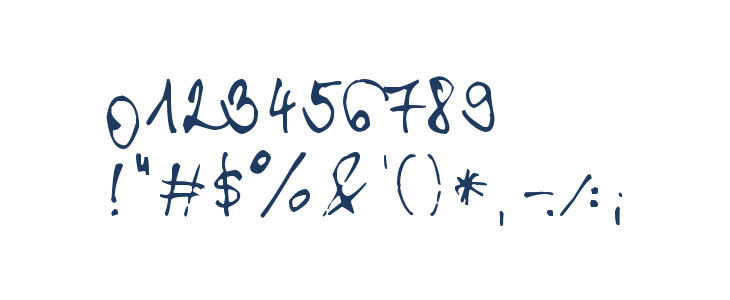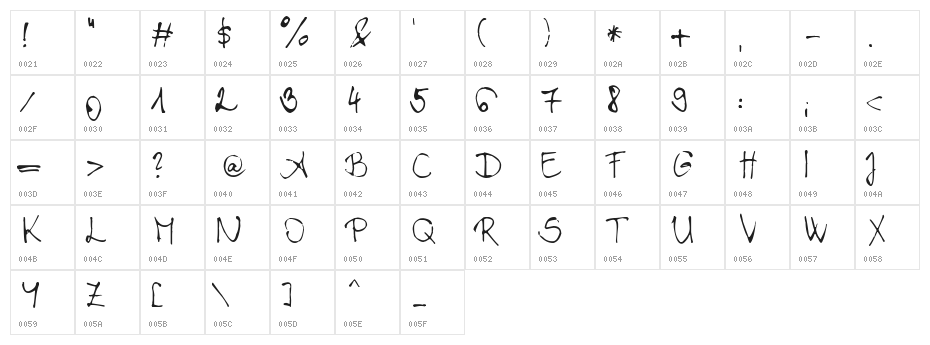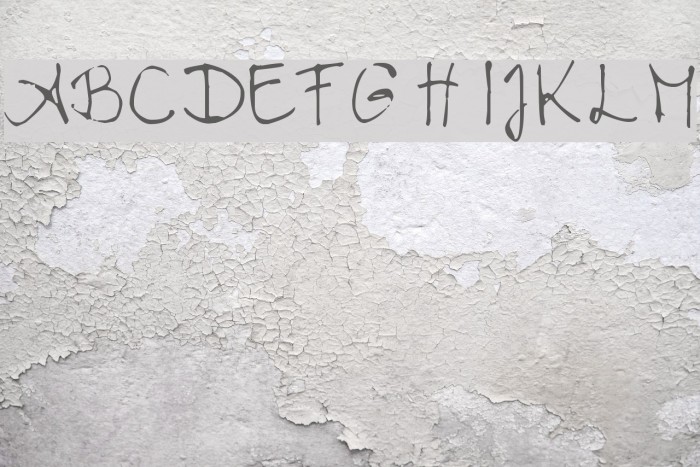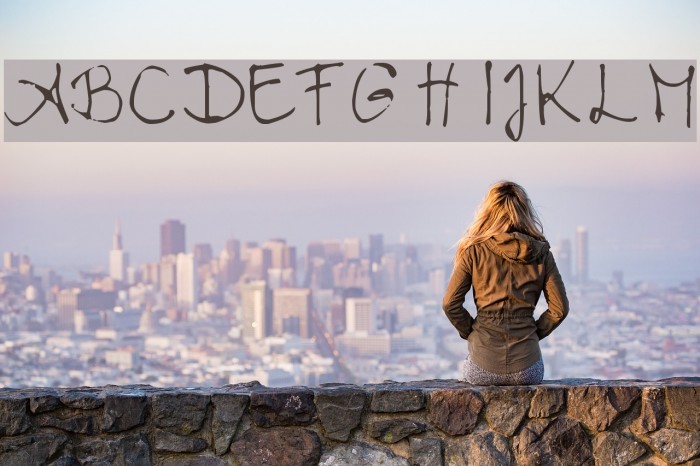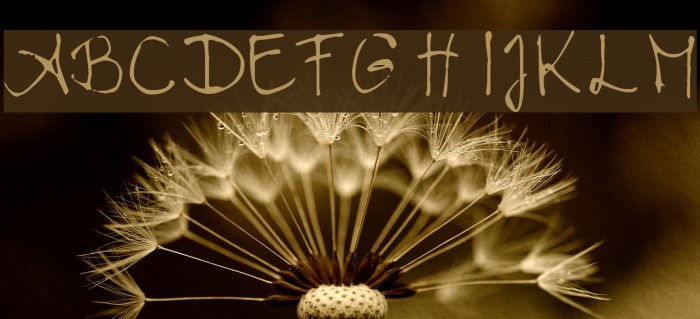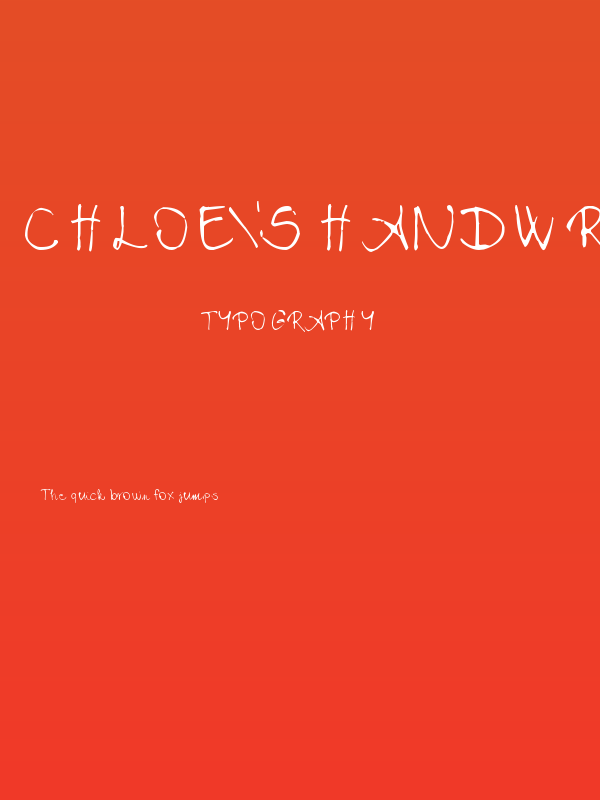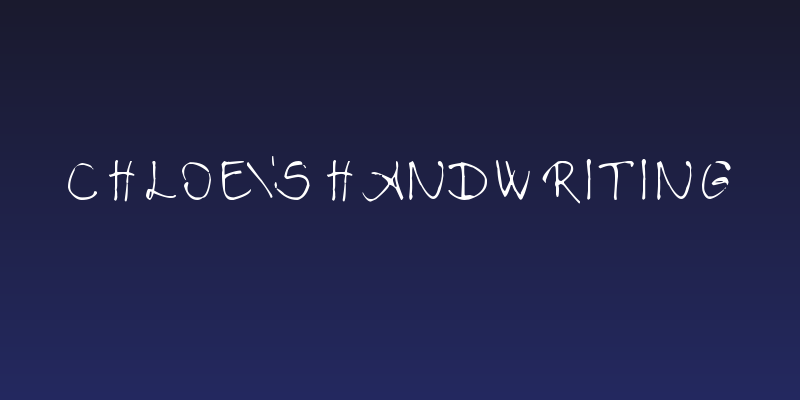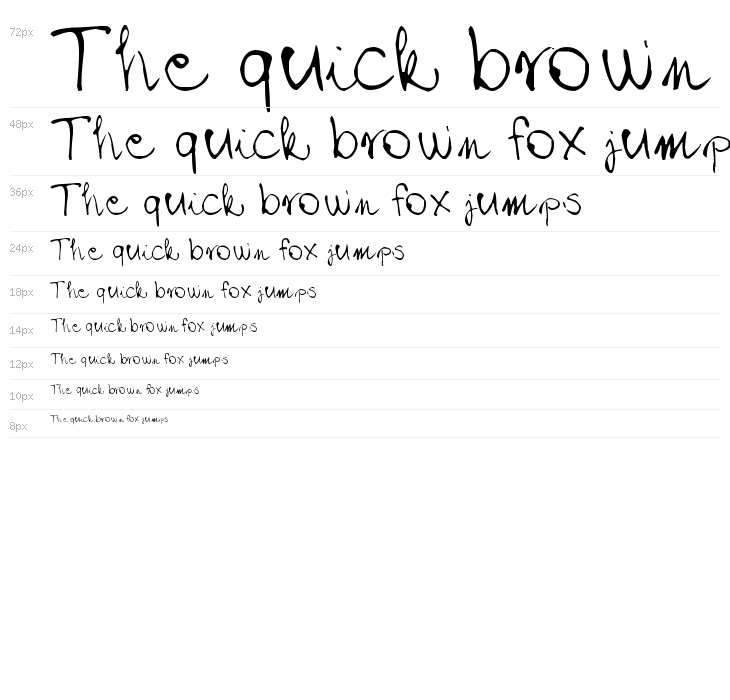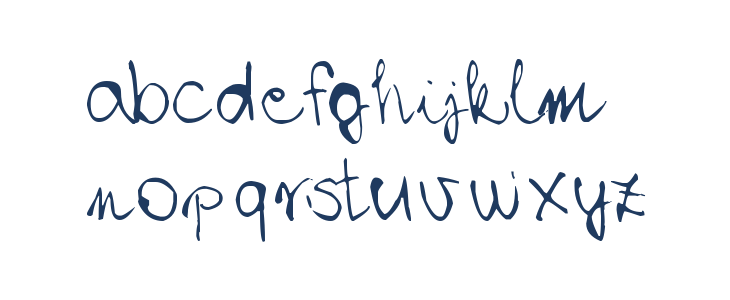
Chloe's handwriting Font
Chloe's handwriting Description
This font exudes a playful and casual handwritten style, characterized by its fluid and organic strokes. Each letter appears as if it was drawn with a brush or pen, giving it a personal and informal touch. The uppercase letters are bold and slightly irregular, while the lowercase letters maintain a consistent flow, adding to the font's charm. Numbers and special characters follow the same handwritten aesthetic, making them blend seamlessly with the alphabet. The overall appearance is dynamic and lively, perfect for projects that require a human touch.